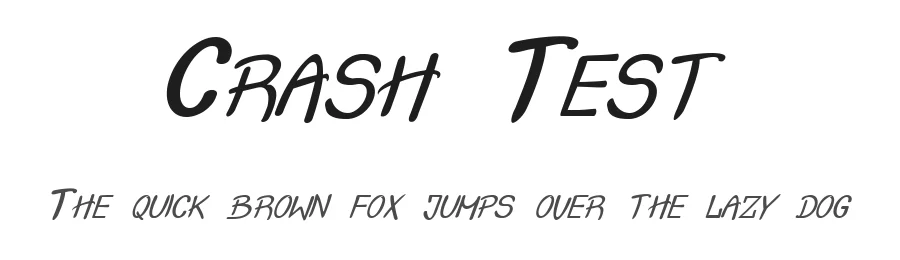
About OZH Font
OZH is a decorative font designed by Paprika Breitholtz. It includes 105 glyphs, a regular weight, TTF (TrueType) format, and 109 languages. OZH is free to download; check the license details on this page before commercial use. Decorative fonts like OZH work best for logos, posters, packaging, and standout headlines.
OZH Font is a decorative font that shines as a display or heading face. Pair it with a clean sans-serif or serif font for body text β the contrast creates a clear hierarchy while the two styles stay balanced and easy to read.
OZH Font
OZH Font is a decorative typeface by Paprika Breitholtz, ideal for logos, invitations, branding, and creative projects.